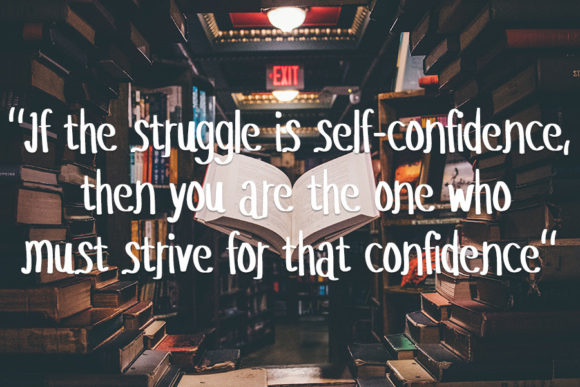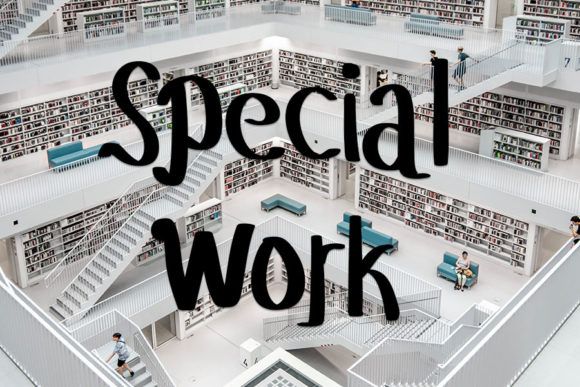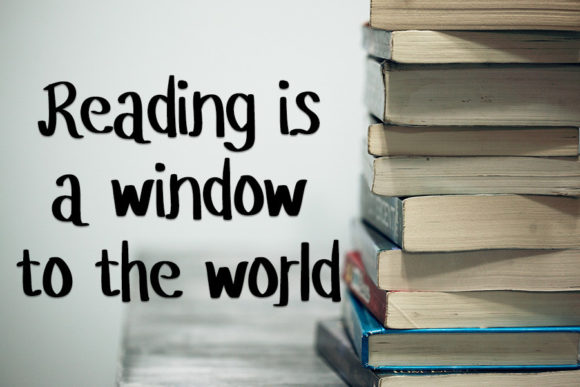
Introduction to Knowledge Font
Knowledge is a cool and neat display font.
Incredibly versatile, this font fits a wide pool of designs, elevating them to the highest levels Add this font to your favorite creative ideas and notice how it makes them come alive.
Key Features of Knowledge Font
Why Choose Knowledge Font?
Knowledge Font offers exceptional quality and versatility, making it a valuable addition to your design toolkit. Whether you’re creating for personal projects or commercial use, Knowledge Font delivers professional results.